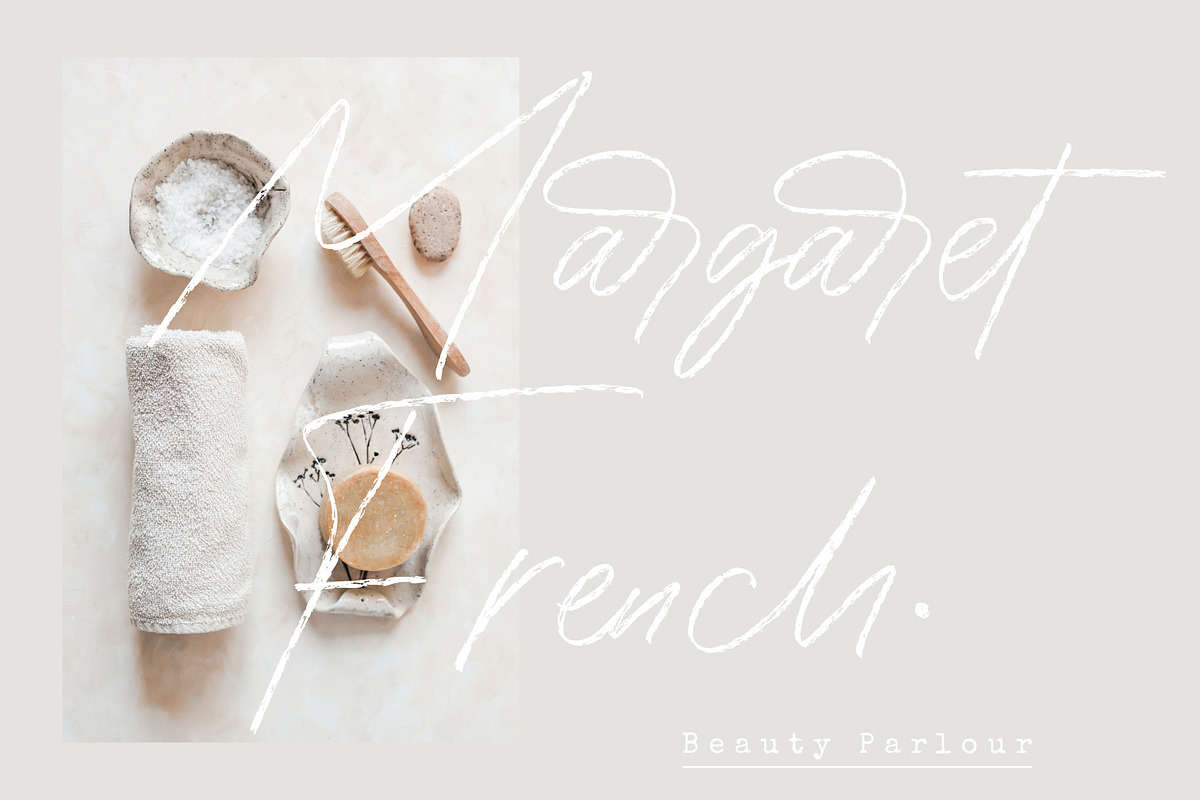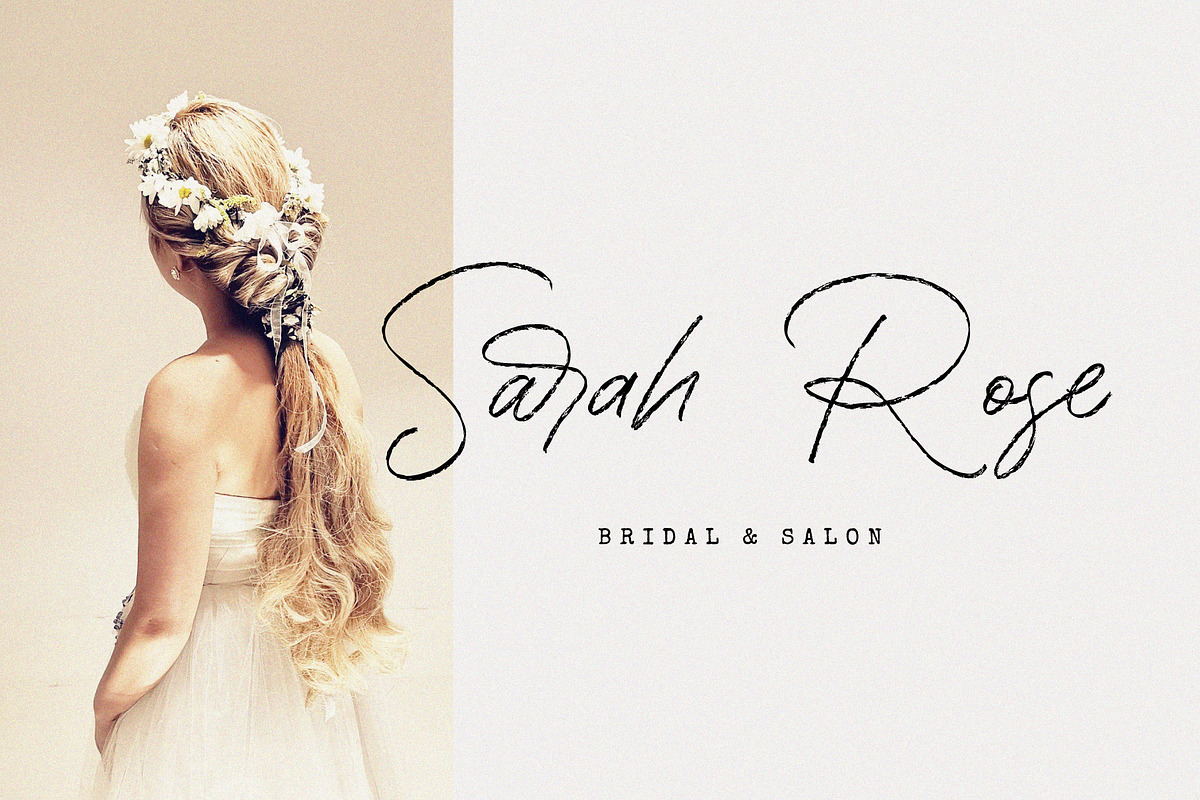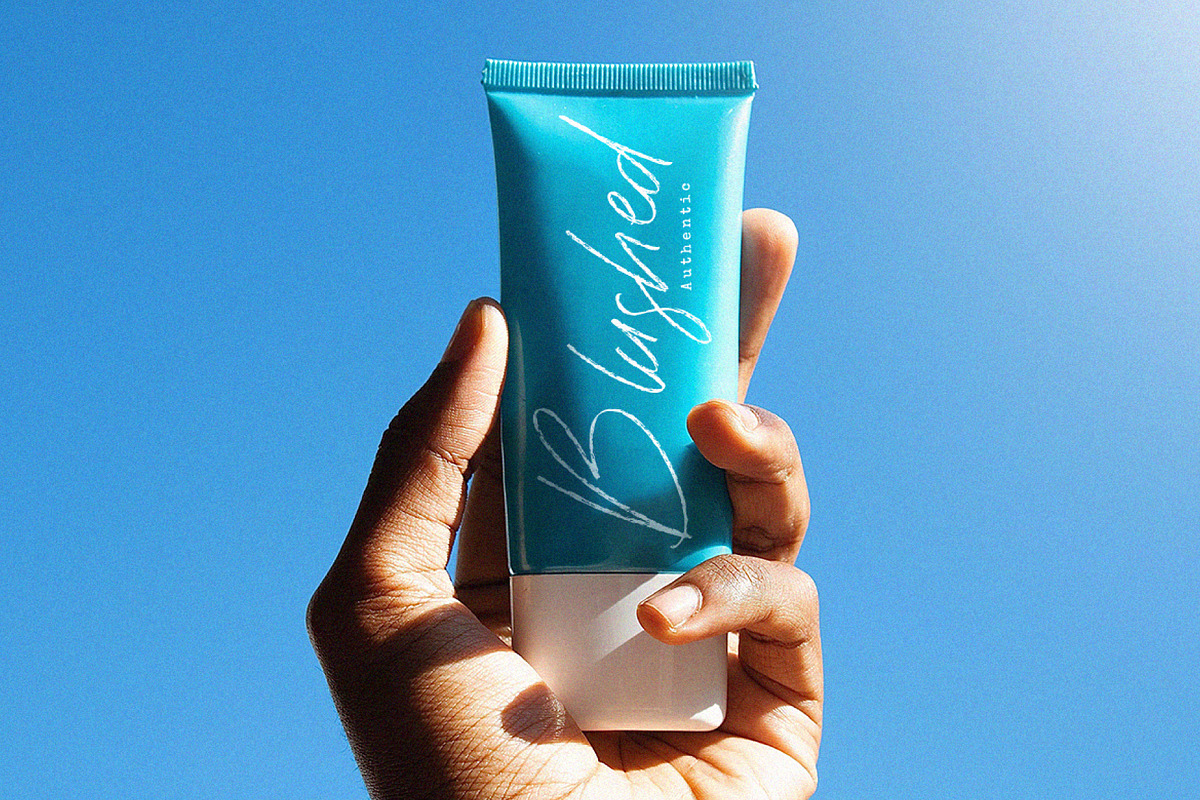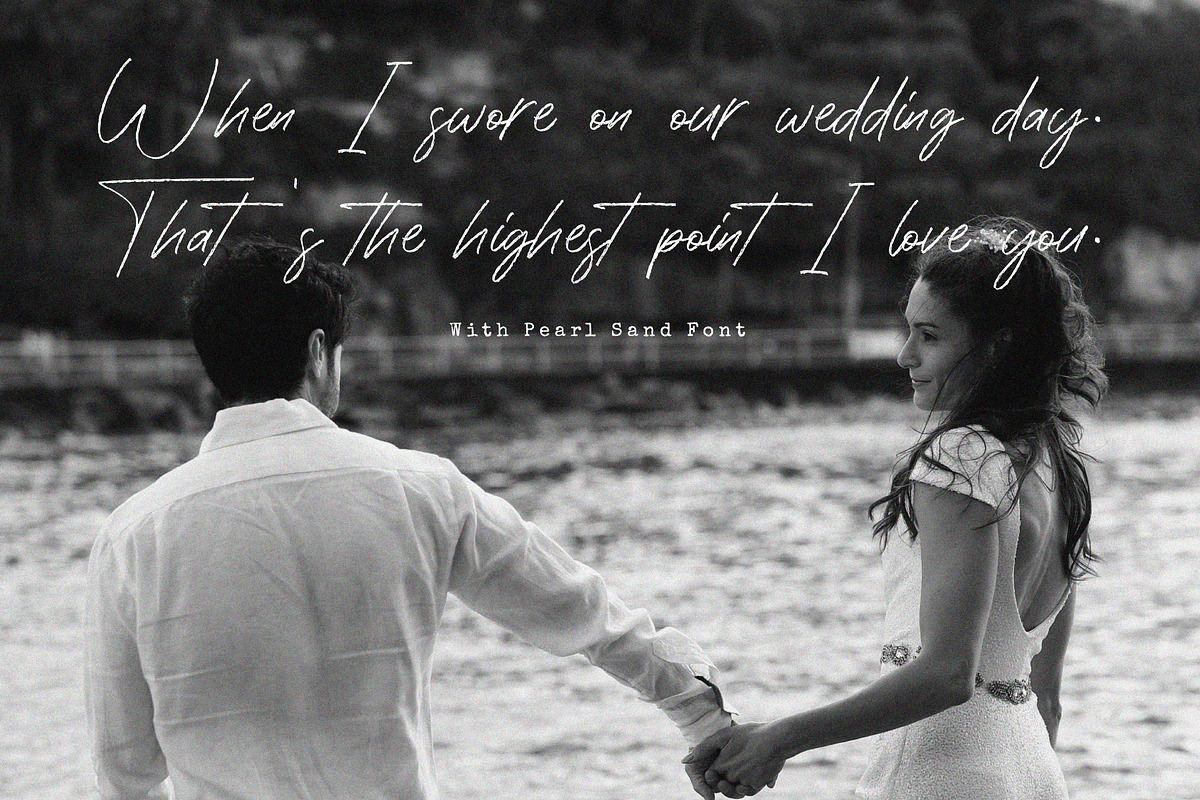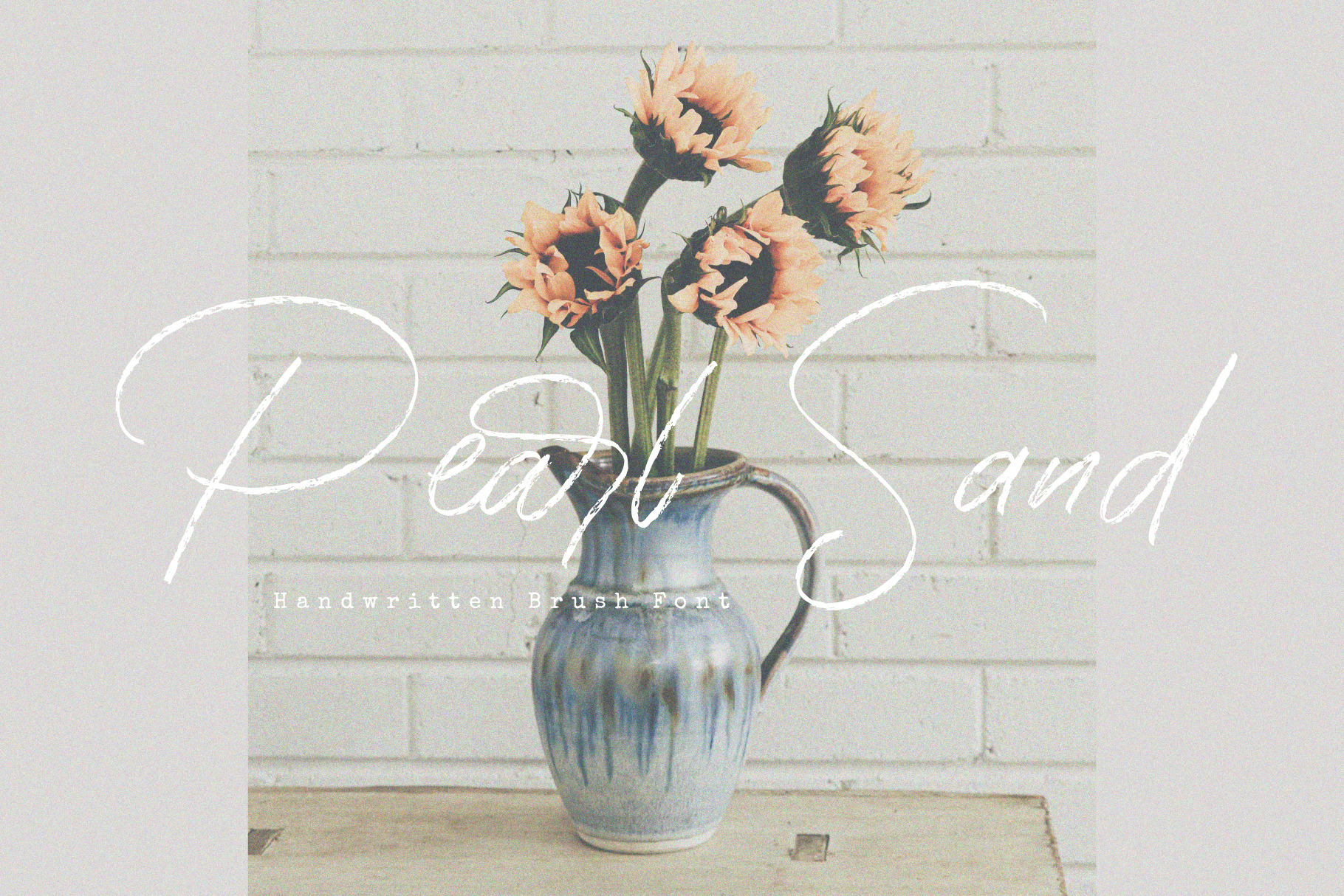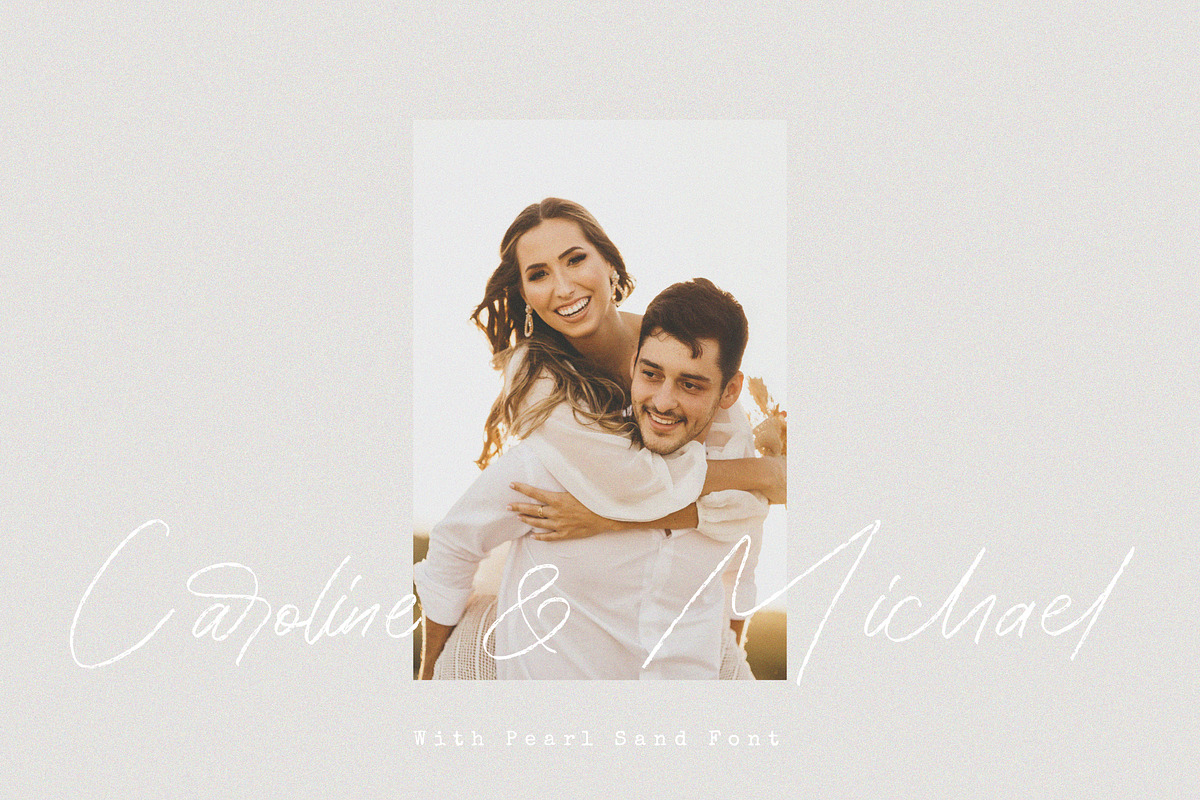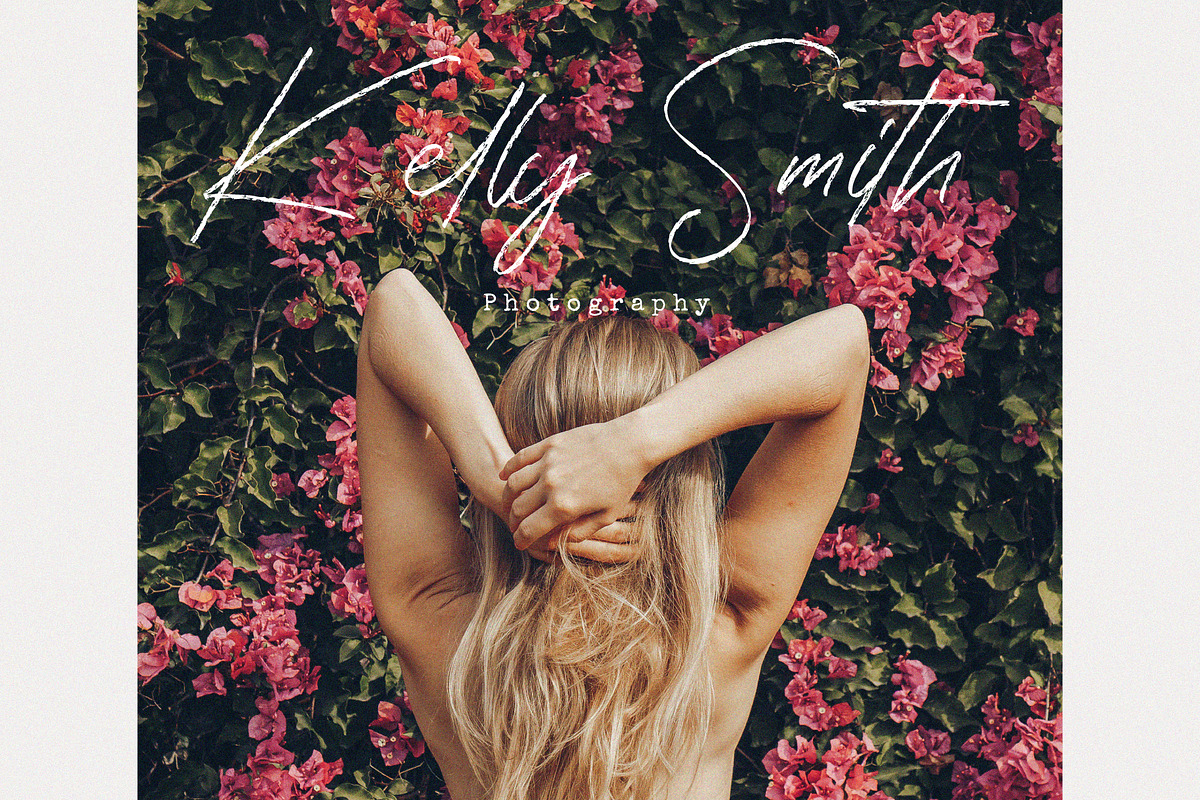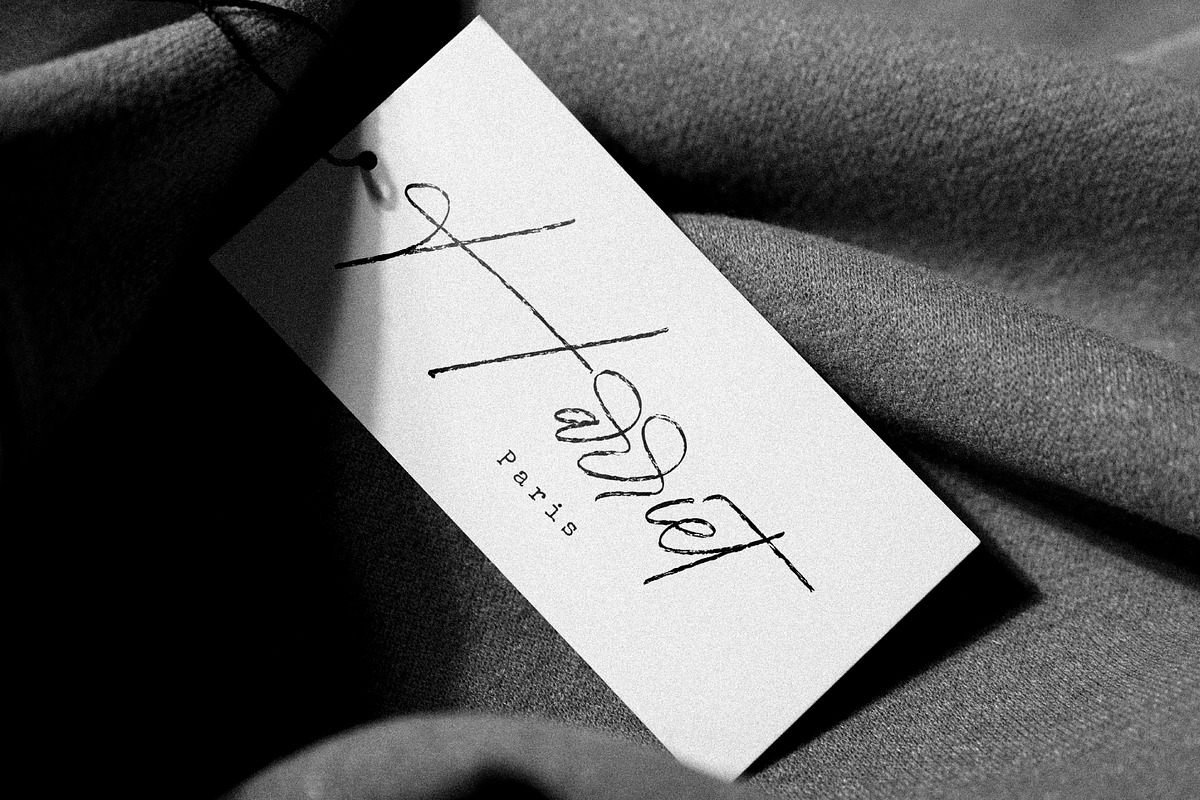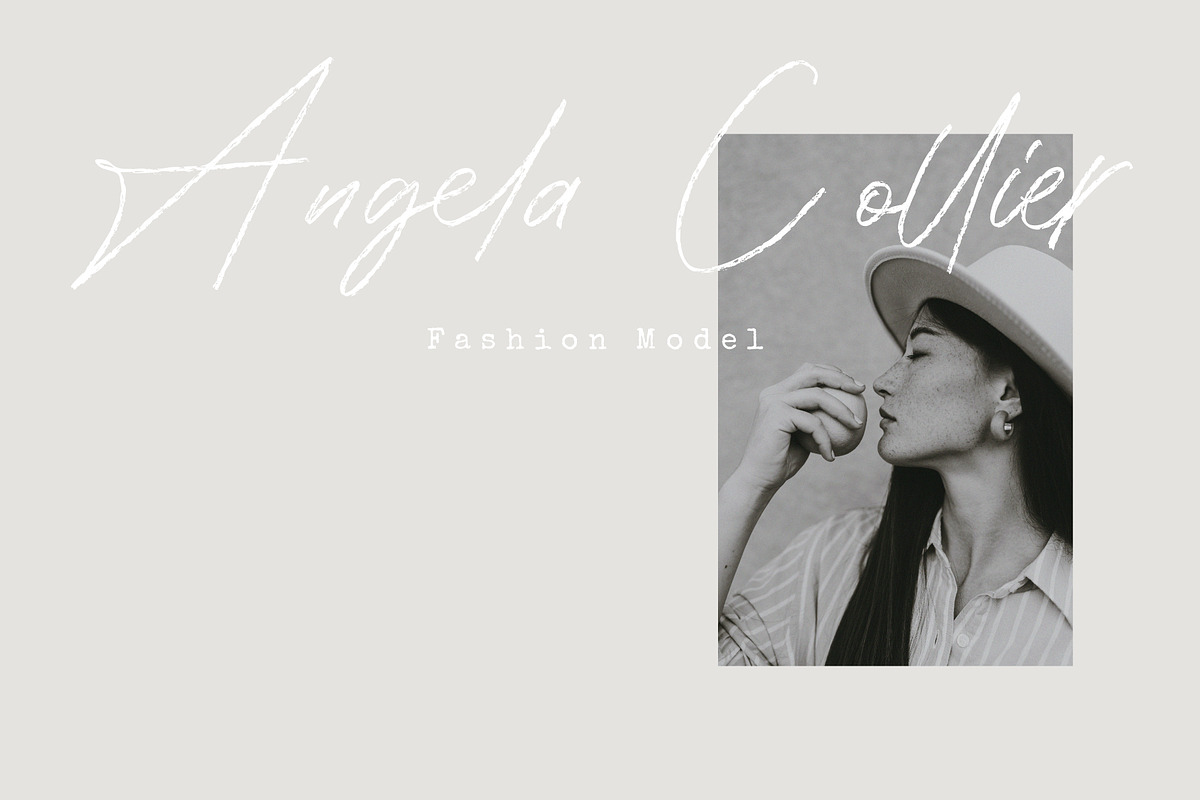
Pearl Sand - Handwritten Brush Font
Handwritten brush font that is elegant and stylish. It looks more perfect with the addition of some character ligatures. Great for branding designs, quotes, wedding invitations etc.
- Features: Uppercase, Lowercase, Numeral, Punctuation, Multilingual, Ligatures & Alternates.
- Multilingual contained: Afrikaans, Albanian, Asu, Basque, Bemba, Bena, Breton, Catalan, Chiga, Cornish, Danish, Dutch, English, Estonian, Filipino, Finnish, French, Friulian, Galician, German, Gusii, Indonesian, Irish, Italian, Kabuverdianu, Kalenjin, Kinyarwanda, Luo, Luxembourgish, Luyia, Machame, Makhuwa-Meetto, Makonde, Malagasy, Manx, Morisyen, North Ndebele, Norwegian Bokmål, Norwegian Nynorsk, Nyankole, Oromo, Portuguese, Quechua, Romansh, Rombo, Rundi, Rwa, Samburu, Sango, Sangu, Scottish Gaelic, Sena, Shambala, Shona, Soga, Somali, Spanish, Swahili, Swedish, Swiss German, Taita, Teso, Uzbek (Latin), Volapük, Vunjo, Zulu.